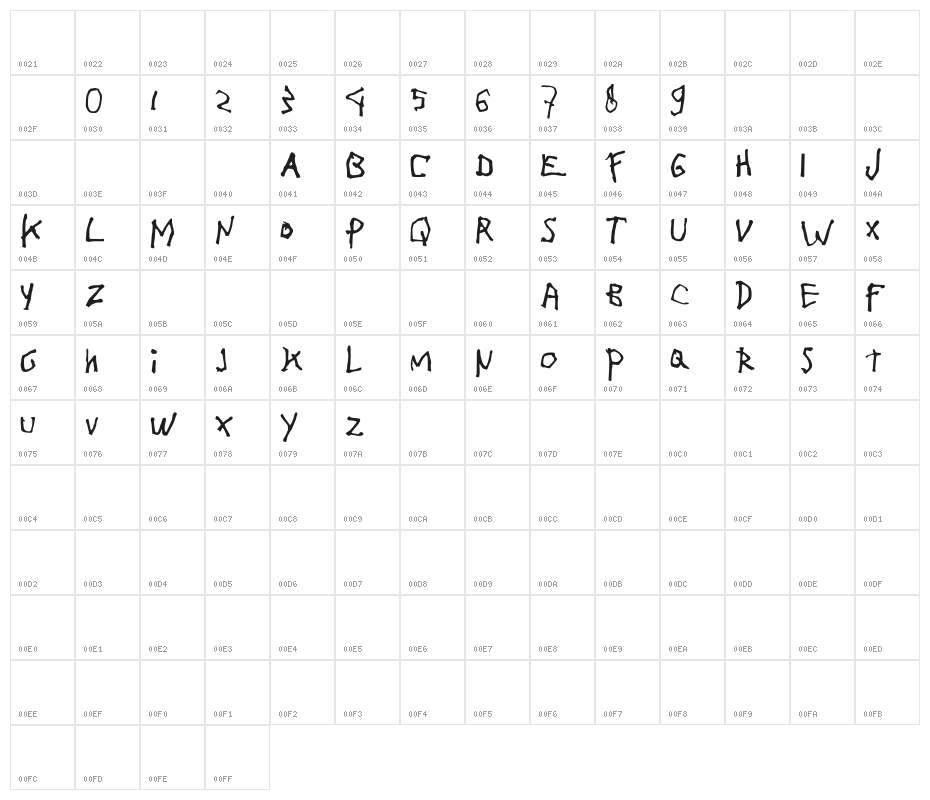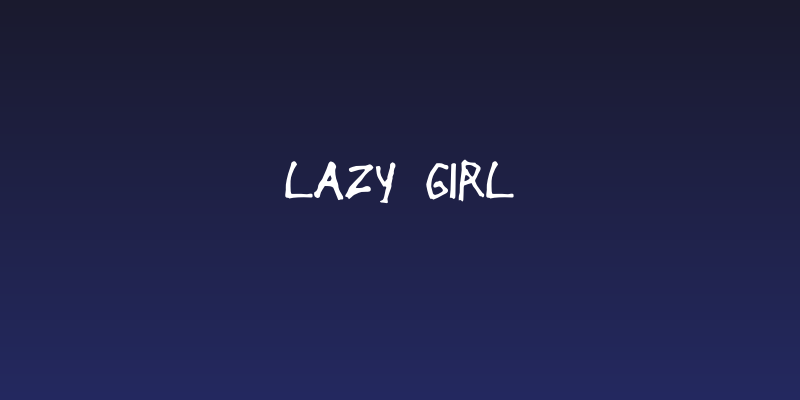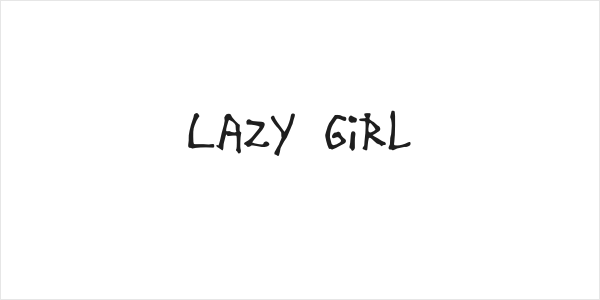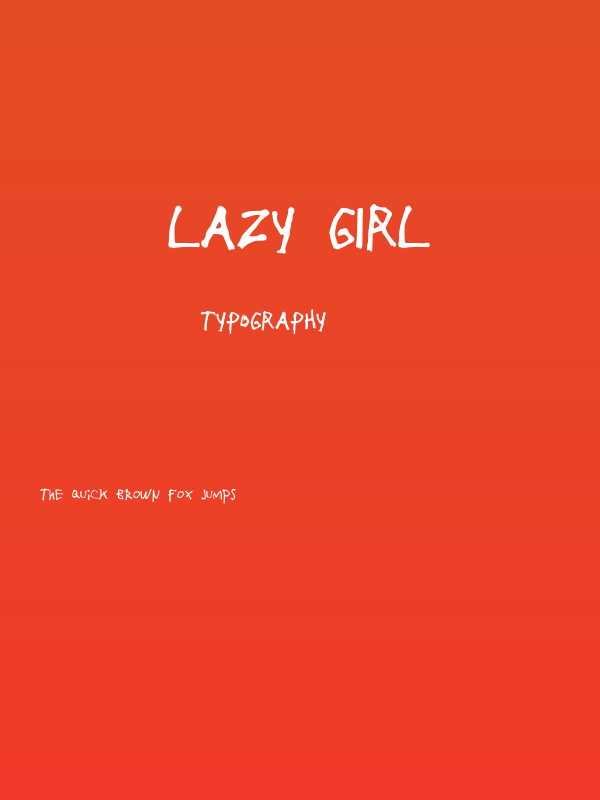
Lazy Girl Font
Lazy Girl Description
This font exhibits a playful and informal style, characterized by its uneven and hand-drawn appearance. The letters have a whimsical quality, with irregular strokes and varying thickness, giving it a casual and artistic feel. The uppercase and lowercase letters maintain a consistent style, with a slightly rough texture that adds to its charm. The numbers and special characters follow the same aesthetic, making it suitable for creative and informal projects. Its unique style makes it stand out, perfect for designs that require a personal touch.
| Use Case | Logos, Posters, Creative projects |
| Proposed Projects | Ideal for greeting cards, children's books, casual posters, and artistic branding. |